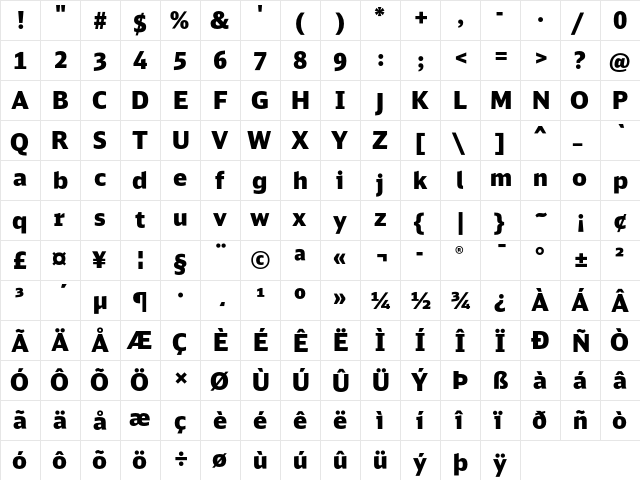
DB Head Alternate Black
Design Context for DB Head Alternate Typeface
DB Head Alternate takes a measured approach to typography — its balanced proportions and neutral character make it a reliable workhorse for both digital and print work.